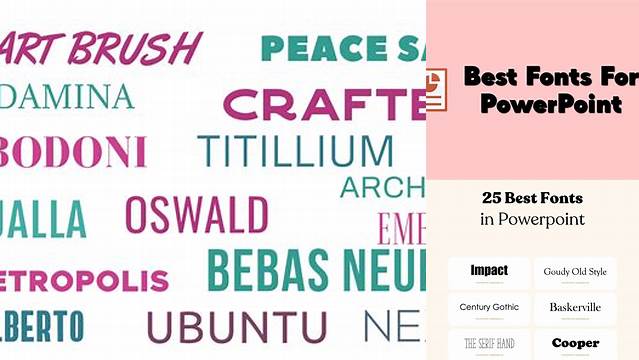
Free Fonts For PowerPoint: Download Now!
Hey guys! Are you tired of using the same old boring fonts in your PowerPoint presentations? Want to make your slides look more professional, engaging, and visually appealing? Well, you've come to the right place! In this article, we're diving deep into the world of free fonts for PowerPoint. We'll explore where to find them, how to download them, and how to use them effectively to elevate your presentations. So, let's get started and transform those slides from drab to fab!
1. Best Websites to Download Free PowerPoint Fonts
Finding the perfect font can be a game-changer for your PowerPoint presentations. Good typography can significantly enhance the readability and overall aesthetic appeal of your slides. But with so many fonts available online, it can be overwhelming to know where to start. Luckily, there are several fantastic websites that offer a wide variety of free fonts specifically for PowerPoint. Let's explore some of the best resources where you can find high-quality fonts without spending a dime.
One of the most popular websites for free fonts is Google Fonts. This platform boasts a vast library of open-source fonts that are not only free but also incredibly versatile. You can easily browse through different font styles, preview them in various sizes, and even download entire font families with just a few clicks. Google Fonts is especially great because it ensures compatibility across different devices and operating systems, making it a reliable choice for presentations that will be viewed on various platforms. Another excellent resource is DaFont. DaFont is a treasure trove for unique and creative fonts. The site categorizes fonts by style, making it easy to find exactly what you're looking for, whether it's a bold display font for headlines or a clean sans-serif font for body text. Just be sure to check the license for each font, as some are free for personal use only. For a more curated selection of free fonts, consider checking out Font Squirrel. Font Squirrel handpicks high-quality fonts and offers them for free commercial use, which is a huge plus if you're creating presentations for business or professional purposes. They also provide a handy web font generator, allowing you to easily convert fonts into different formats for web use.
4. Popular Font Styles for PowerPoint
Choosing the right font for your PowerPoint presentation is crucial for conveying your message effectively. The font style can set the tone, enhance readability, and make your slides visually appealing. But with so many fonts to choose from, it can be a bit overwhelming. Let's explore some popular font styles that work well in PowerPoint, so you can make informed decisions and create presentations that truly stand out. Understanding the nuances of different font styles can help you create visually appealing and effective presentations.
First up, we have sans-serif fonts. These fonts are known for their clean, modern look and are a great choice for body text and headings alike. Some popular sans-serif fonts include Arial, Helvetica, Calibri, and Open Sans. Their simplicity makes them highly readable, even from a distance, which is essential for presentations. Next, let’s talk about serif fonts. Serif fonts have small decorative strokes at the ends of the letters, giving them a more traditional and formal appearance. Times New Roman, Garamond, and Georgia are classic examples of serif fonts. While they can work well for body text, they're often best used sparingly in PowerPoint, as too much serif text can make slides look cluttered. Then there are script fonts. These fonts mimic handwriting and can add a touch of elegance and personality to your presentations. However, script fonts should be used sparingly, as they can be difficult to read in large blocks of text. Brush Script, Pacifico, and Lobster are popular script fonts. Save them for headings or short, impactful phrases. For something a bit more attention-grabbing, consider using display fonts. These fonts are designed to be eye-catching and are perfect for headings and titles. They come in a wide variety of styles, from bold and futuristic to playful and whimsical. Bebas Neue, Impact, and Montserrat are some popular display fonts. Just remember not to overuse display fonts, as they can quickly become overwhelming. Finally, it’s worth mentioning monospace fonts. Monospace fonts have characters that each take up the same amount of horizontal space, making them a good choice for code snippets or other situations where alignment is important. Courier New is the most well-known monospace font. By understanding the characteristics of these different font styles, you can choose the perfect typography for your PowerPoint presentations and make your message shine. Remember, the right font can make all the difference!
5. Combining Fonts Effectively in PowerPoint
Using multiple fonts in your PowerPoint presentation can add visual interest and help differentiate between different types of content. However, it's crucial to combine fonts effectively to avoid creating a cluttered or unprofessional look. A well-chosen font pairing can elevate your presentation from good to great, while a poor pairing can make your slides look messy and disorganized. So, how do you master the art of font pairing? Let's explore some tips and tricks to help you combine fonts like a pro.
The golden rule of font pairing is to keep it simple. It's generally best to stick to two or three fonts at most in a single presentation. Too many fonts can create visual chaos and distract your audience from your message. Think of it like a well-coordinated outfit – you want different pieces that complement each other, not clash. A classic and reliable approach is to pair a sans-serif font with a serif font. For example, you could use a sans-serif font like Open Sans for your headings and a serif font like Garamond for your body text. This combination creates a nice contrast while maintaining readability. Sans-serif fonts tend to have a more modern and clean look, while serif fonts have a more traditional and formal feel, so they balance each other out nicely. Another approach is to use different weights and styles within the same font family. Many fonts come in various weights (e.g., light, regular, bold) and styles (e.g., italic, condensed). Using these variations can add visual interest without introducing entirely different fonts. For instance, you could use the bold version of a font for headings and the regular version for body text. When choosing fonts, consider the overall tone and message of your presentation. A formal presentation might call for classic and professional-looking fonts, while a more creative or casual presentation might benefit from more playful or unique fonts. The fonts you choose should align with the subject matter and the audience you're presenting to. Always prioritize readability. The most stylish font in the world won't matter if your audience can't easily read it. Make sure your font choices are clear and legible, especially for body text. Avoid overly decorative or script fonts for large blocks of text, as they can be difficult to read from a distance. Before finalizing your font choices, preview your presentation on different devices and screen sizes to ensure everything looks as intended. Fonts can sometimes appear differently depending on the device or software used, so it's always best to double-check. By following these tips, you can confidently combine fonts in your PowerPoint presentations and create visually appealing and effective slides.